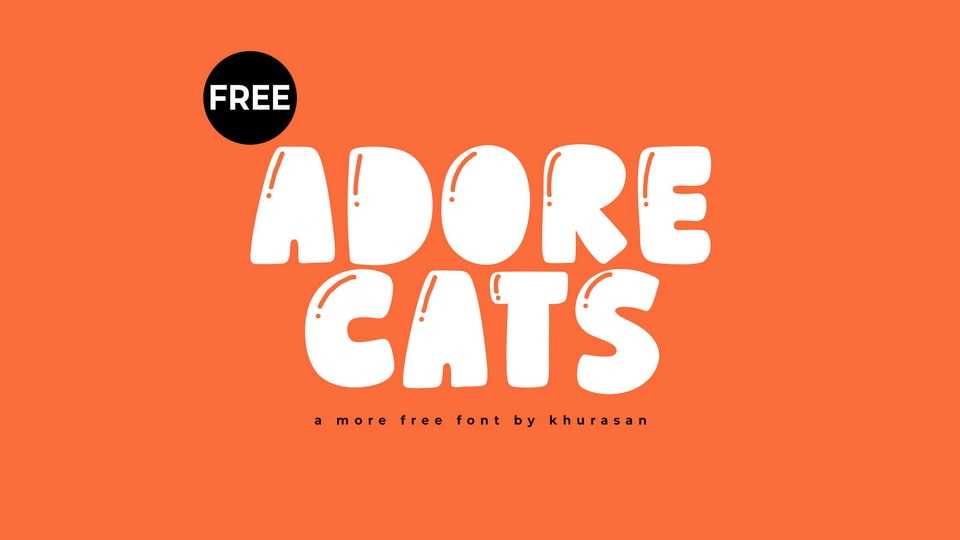
Adore Cats Font › Fontesk – Download Grátis
Download Chunky Gloss font, a bold and quirky handcrafted typeface with a thick, exaggerated style that instantly grabs attention.